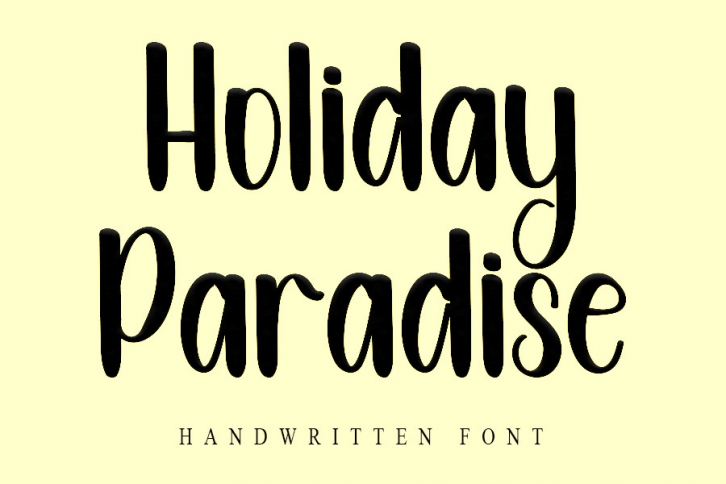
Holiday Paradise is a beautiful and bold handwritten font that’s great for delivering any message with confidence, authenticity and charm. It will elevate a wide range of crafting ideas, from cards, to branding, labels and much more.